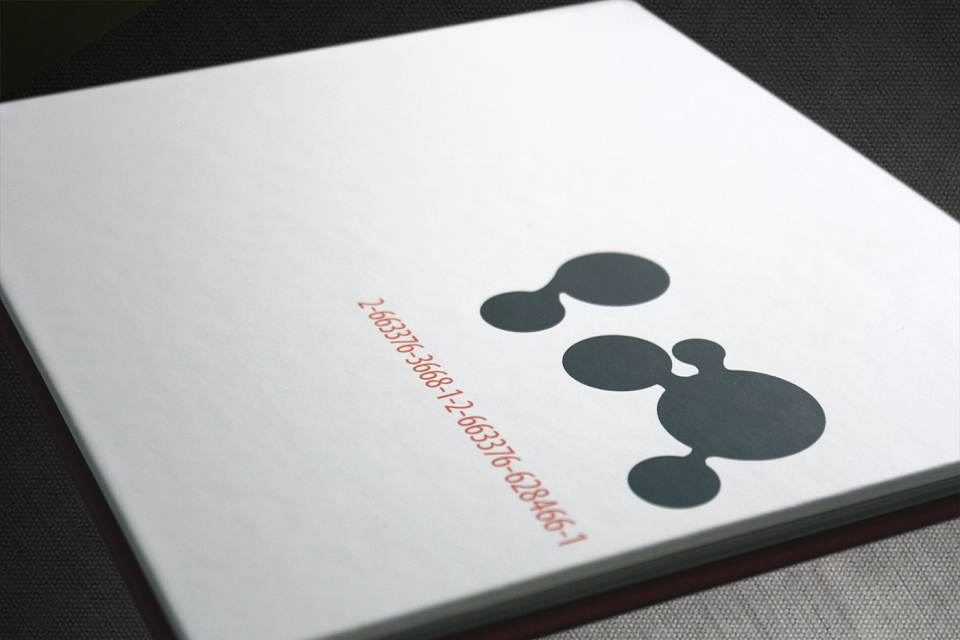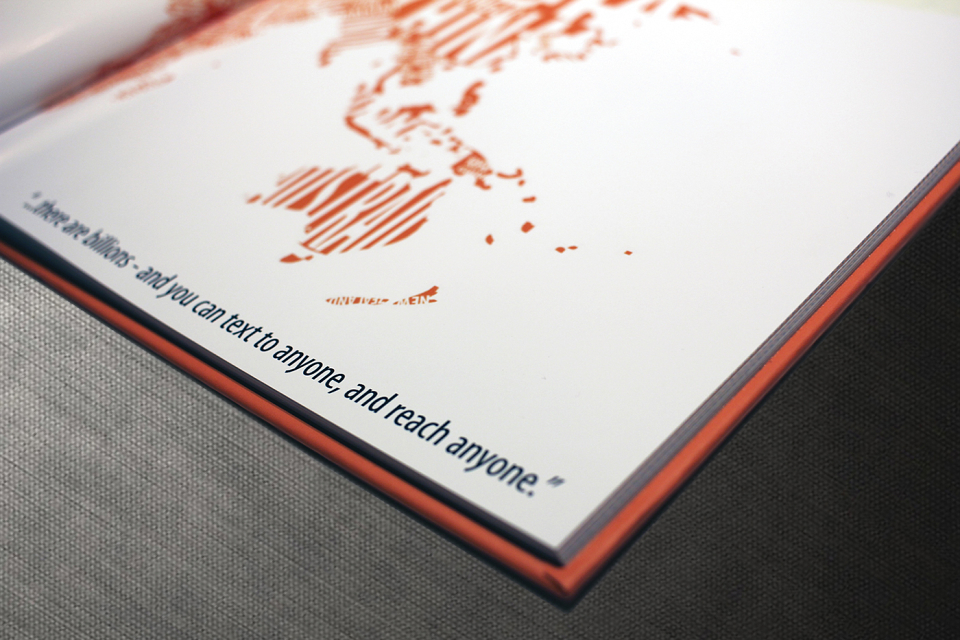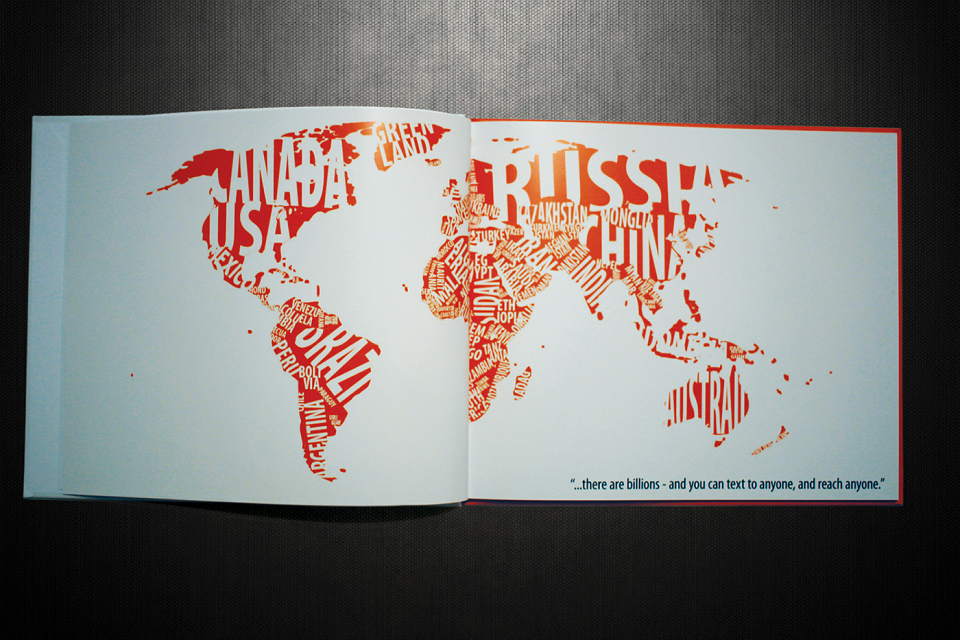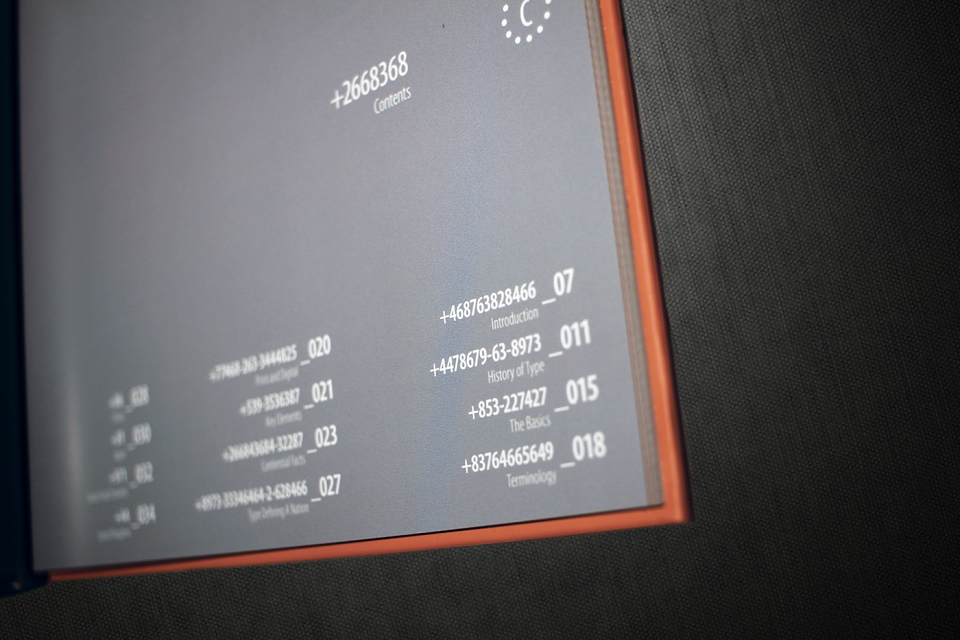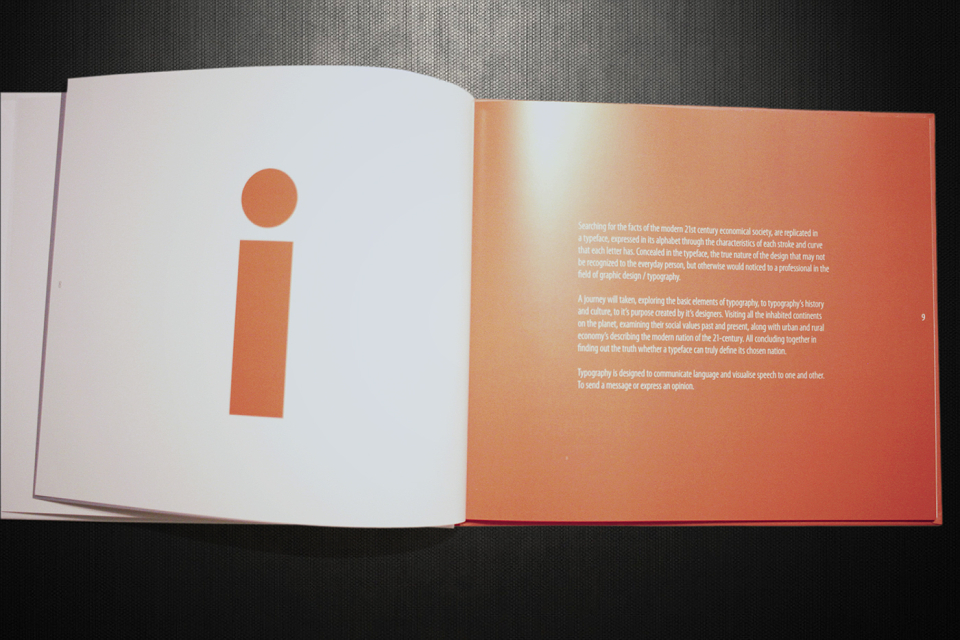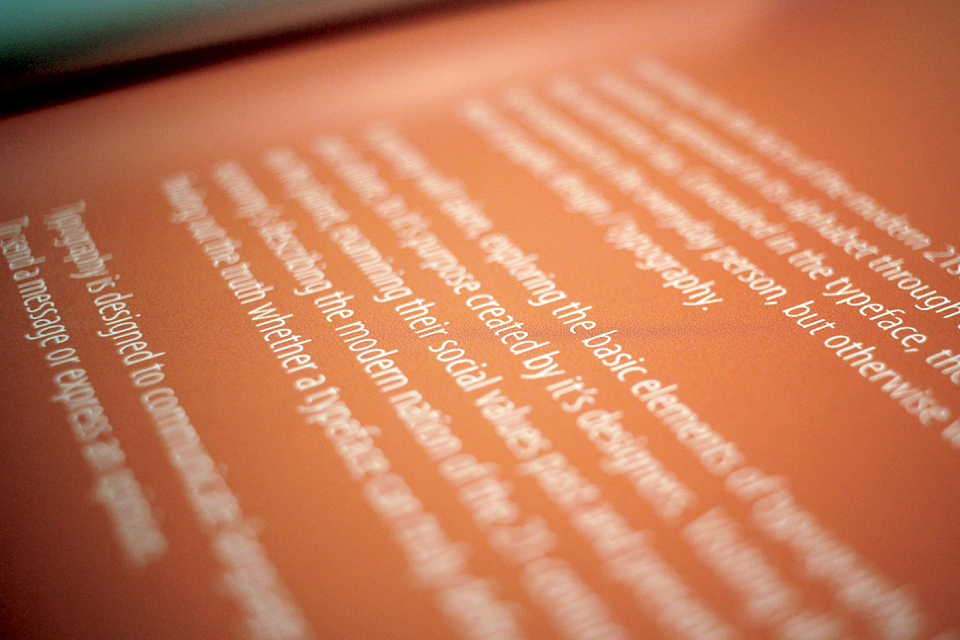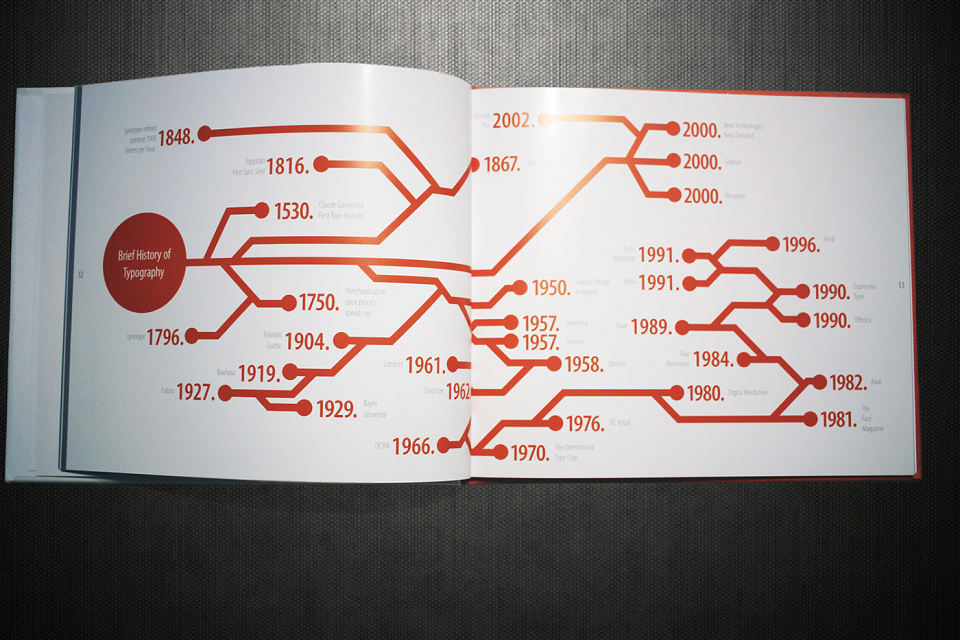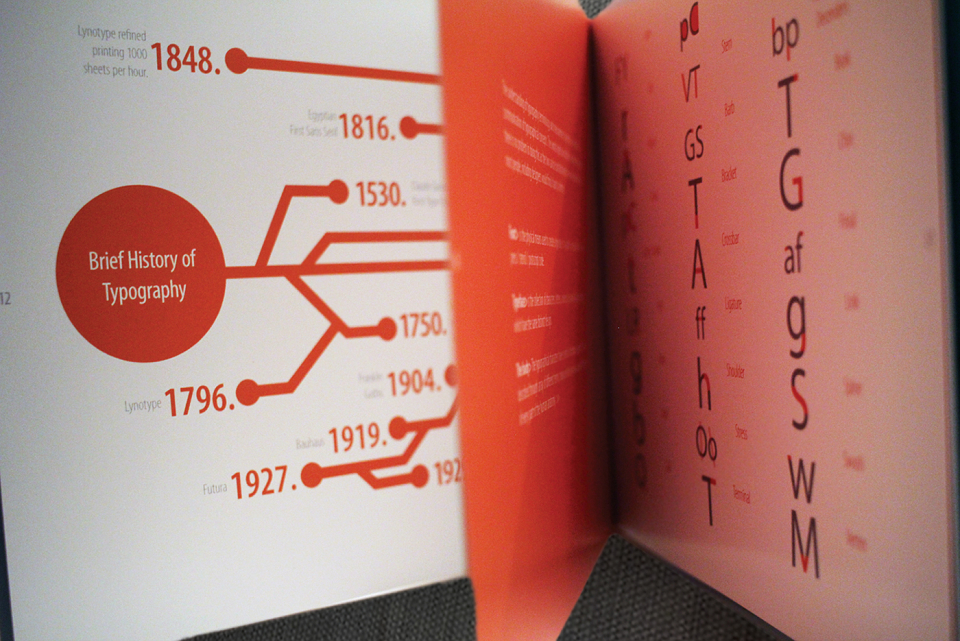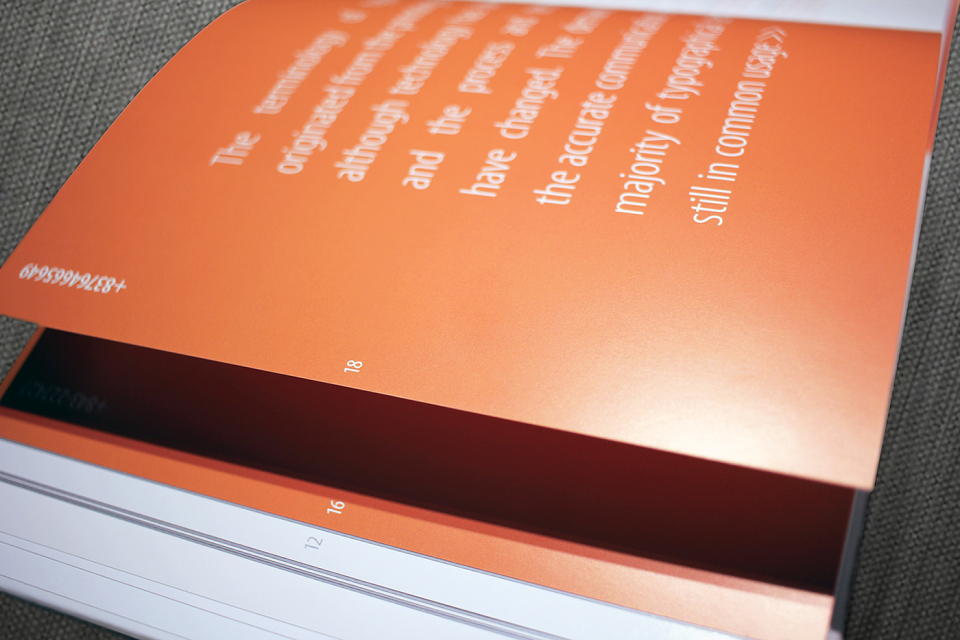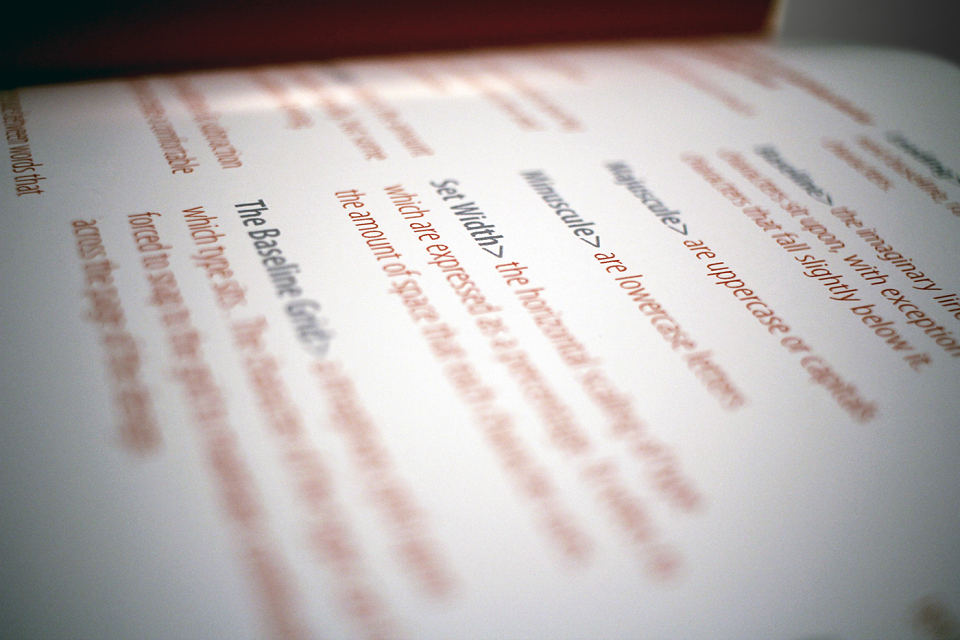
A Modern Nation. A Modern Font? Is a self-directed project asking the question? Can a typeface define a country? Does the characteristics of a typeface reflect a modern nations social economical community in the 21st century? Does this typeface tell truth or lie about the country?
As a nation’s economy change and develop, sometimes they lose their identity and forget their origins or some do not. Designers create type to illustrate a nations economy to sell a typical product originated from for example, a Chinese food establishment in London, England they would used a Chinese typeface with Chinese calligraphic symbols to represent where it comes from. But does the typeface on the visual sign truly define its country in the 21st century? What is the message behind the visual?
This is a concept on how visual communication is converted from languages to sending a message or information too and from one and other. In the 21st century our planet has become a giant network of communication that we are all connected too. With the advancement of technologies and everything becoming digitalised, people can communicate to each from the Internet, digital devices, emails, Facebook and Twitter communication to each other never been so accessible. In which typography has become the face of communication for people to connect with.
In depth research has been explored in to all the aspects of typography. All of the inhabited continents about there economies and cultures past, present and future. Looking into typographers, designers, agencies and Type Foundry’s in how to utilise type to communicate the visual in the modern 21st century.
To answer the question set. I have designed a book, as it would be fitting element to connection that publishing has with typography. A book titled ‘A Modern Font? A Modern Nation?’
A Modern Font? A Modern Nation?